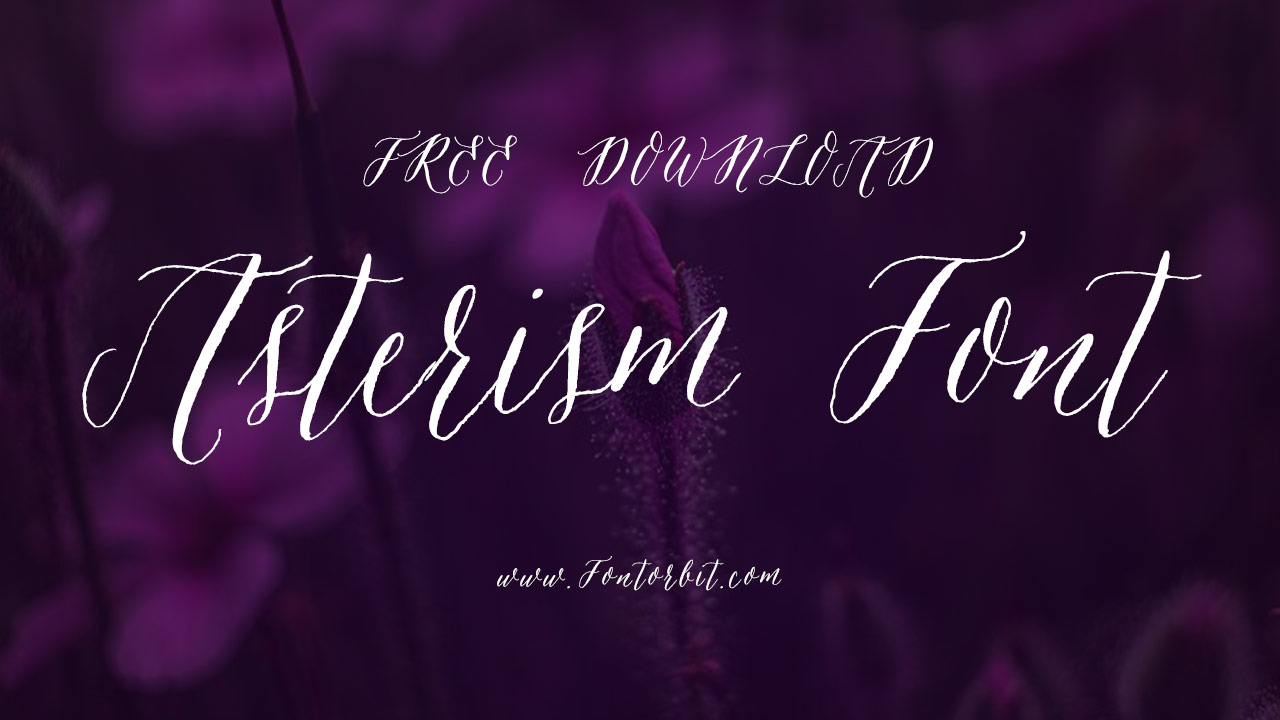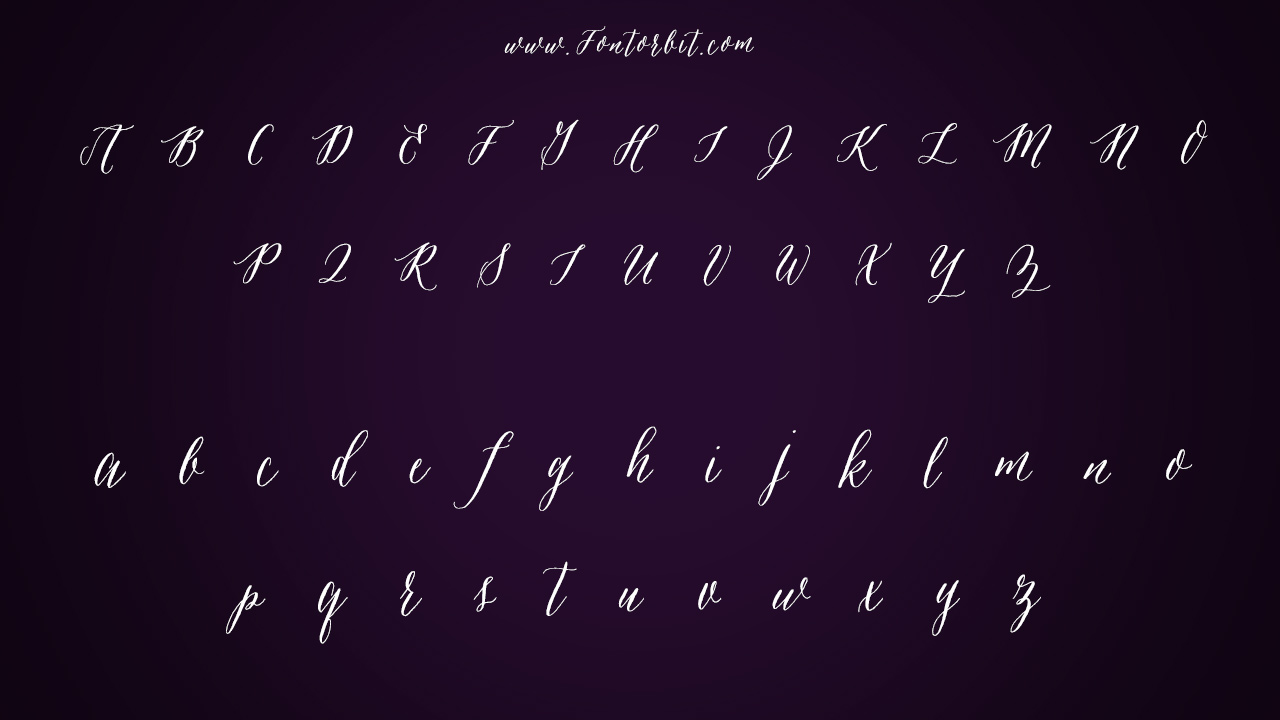
Its fluid, sophisticated strokes make it an excellent choice for a wide range of creative applications, perfect for adding a touch of refinement to your personal projects.
| Style: | Calligraphy |
The Asterism font is widely used in design contexts where elegance and formality are required. Its popularity is seen in wedding invitations, high-end product packaging, luxury brand logos, and sophisticated social media posts. The font’s hand-drawn aesthetic also lends itself well to personal blogs, creative portfolios, and formal announcements.
Asterism Font is a sophisticated, calligraphic typeface that brings an air of elegance to personal projects. Whether you’re designing invitations, cards, or logos, its flowing strokes and refined style will enhance any design.
Asterism Font is versatile and works well for both small text and large displays, making it adaptable for a wide range of projects.
Fonts like Beloved Script, Great Vibes, and Alex Brush offer a similar elegant, script style.
6.What Are The Unique Features Of The Asterism Font?
Asterism Font features flowing, calligraphic strokes with a hand-drawn feel, perfect for adding elegance and sophistication to personal designs.